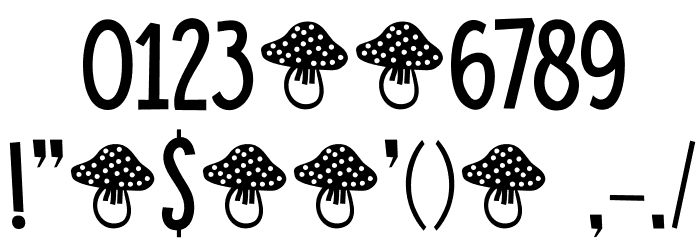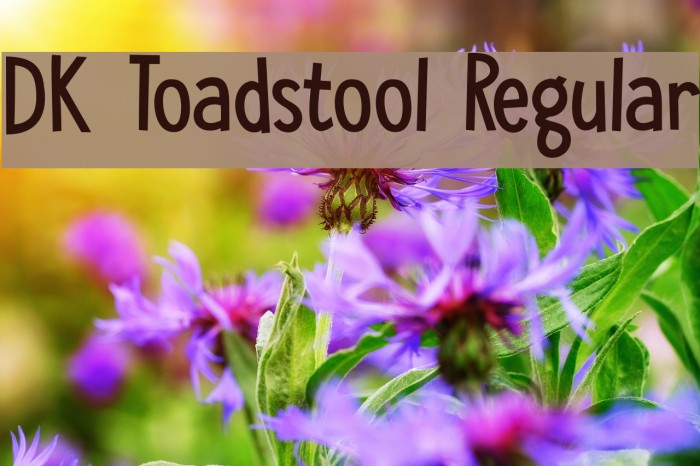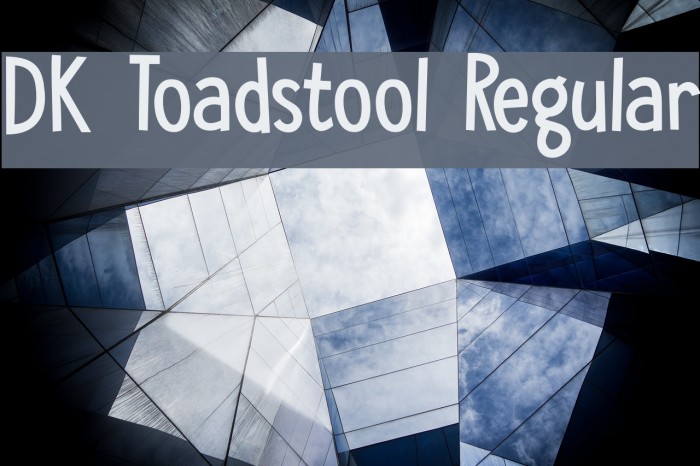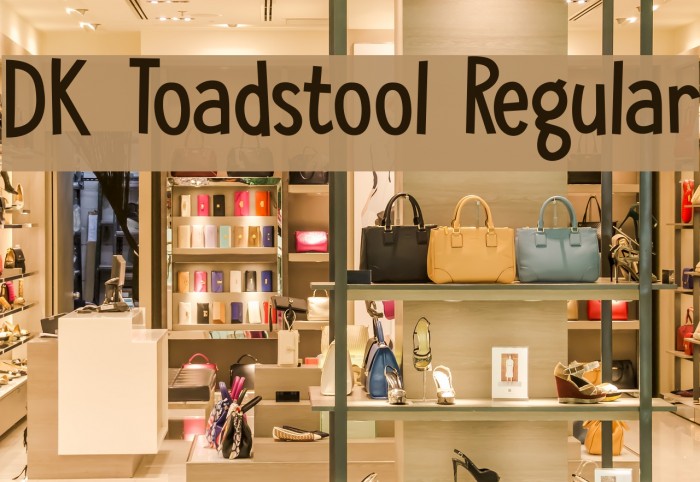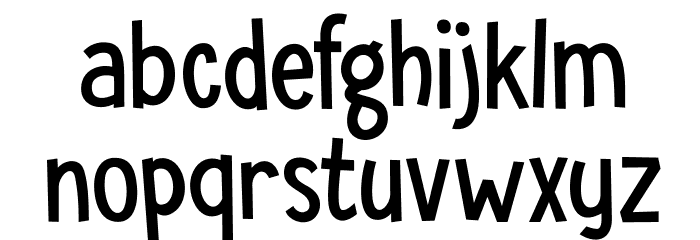
DK Toadstool Regular Font
DK Toadstool Regular Description
This playful and whimsical font features a hand-drawn style with uneven strokes and a slightly irregular baseline, giving it a charming, organic feel. The uppercase letters are tall and narrow, while the lowercase letters maintain a consistent roundness, adding to the font's friendly appearance. The numbers and special characters follow the same playful style, making them suitable for creative projects. The font includes unique mushroom illustrations as part of its character set, enhancing its quirky and fun aesthetic.
A playful, hand-drawn font with whimsical, uneven strokes and unique mushroom illustrations from Cartoon fonts.
- Proposed Projects: Ideal for children's books, playful branding, greeting cards, and creative posters.
- Overall Style: Whimsical
- Use Case: Headlines, Logos, Creative projects